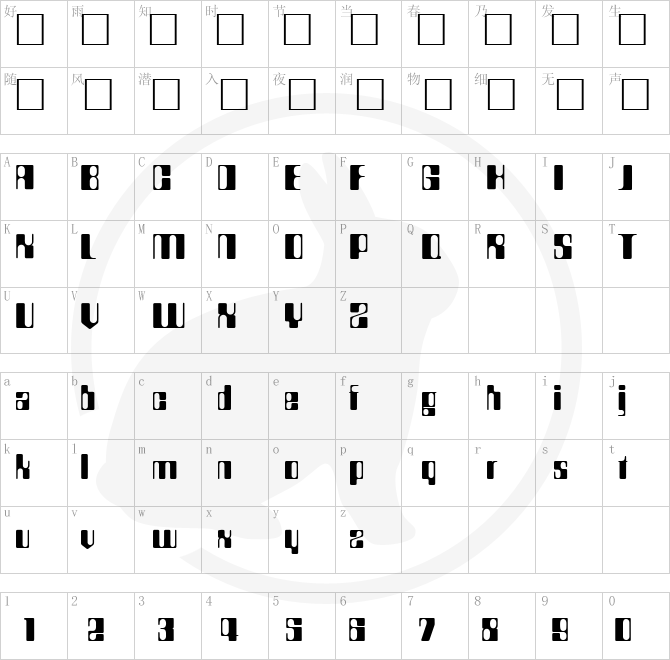
- Font Name:HAL
HAL.ttf is a very beautiful artistic font, HAL.ttf is widely used in the design and printing of various books and pictures,HAL.ttf has a strong visual impact,HAL.ttf is a commonly used font in newspapers, magazines and books, and is used in posters, e-commerce Poster design, store design, logo design, font design and other fields.HAL.